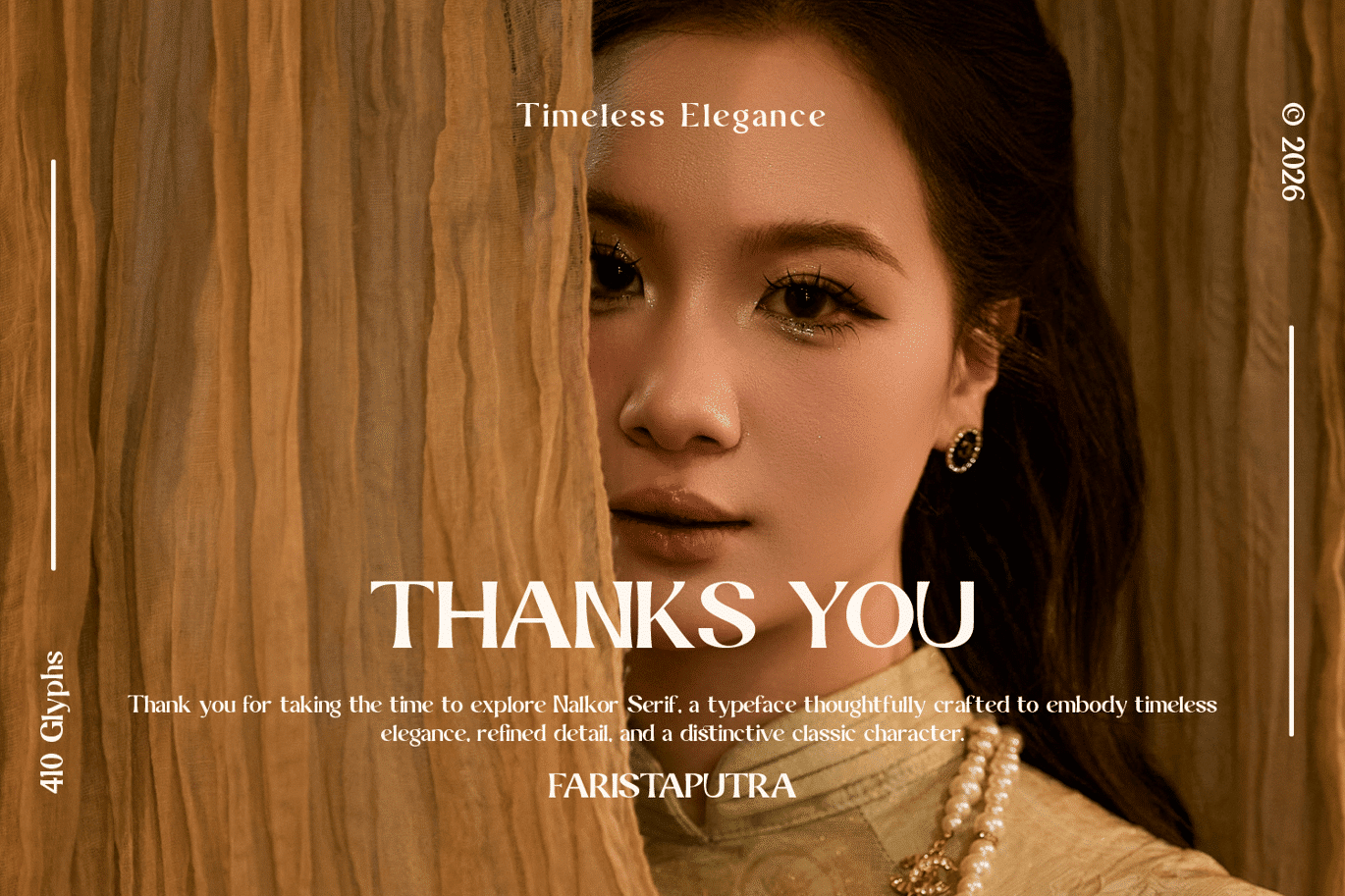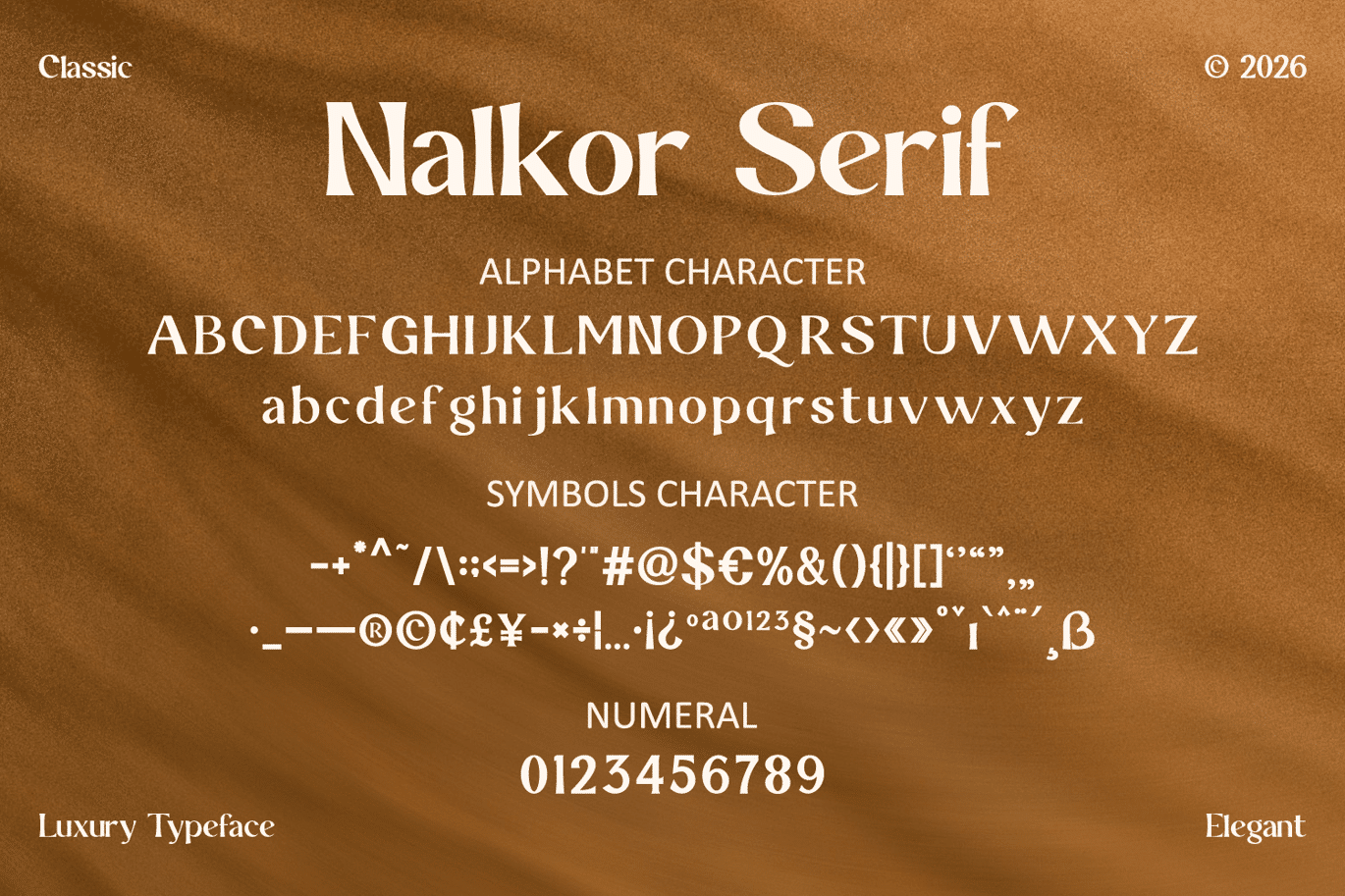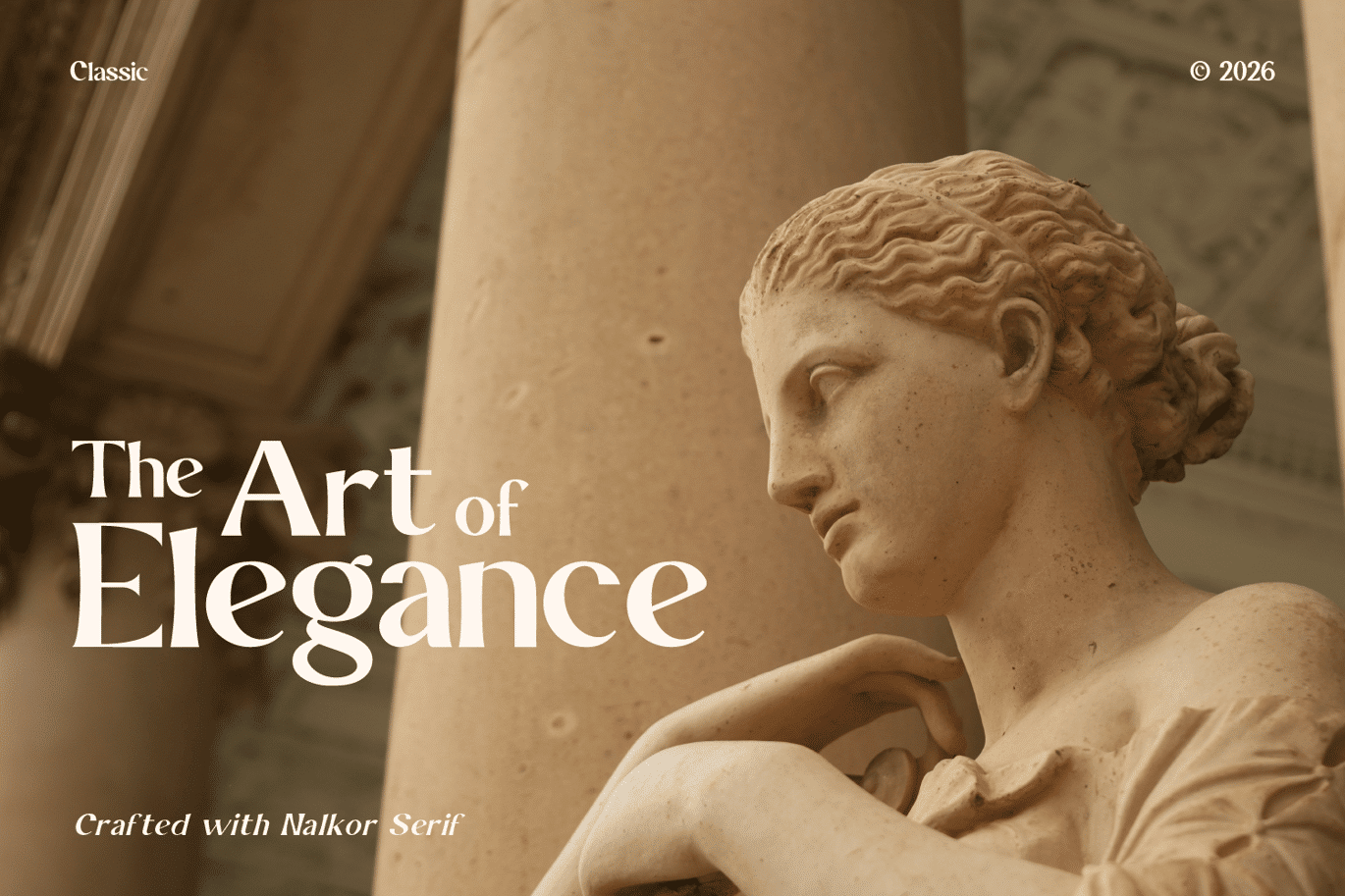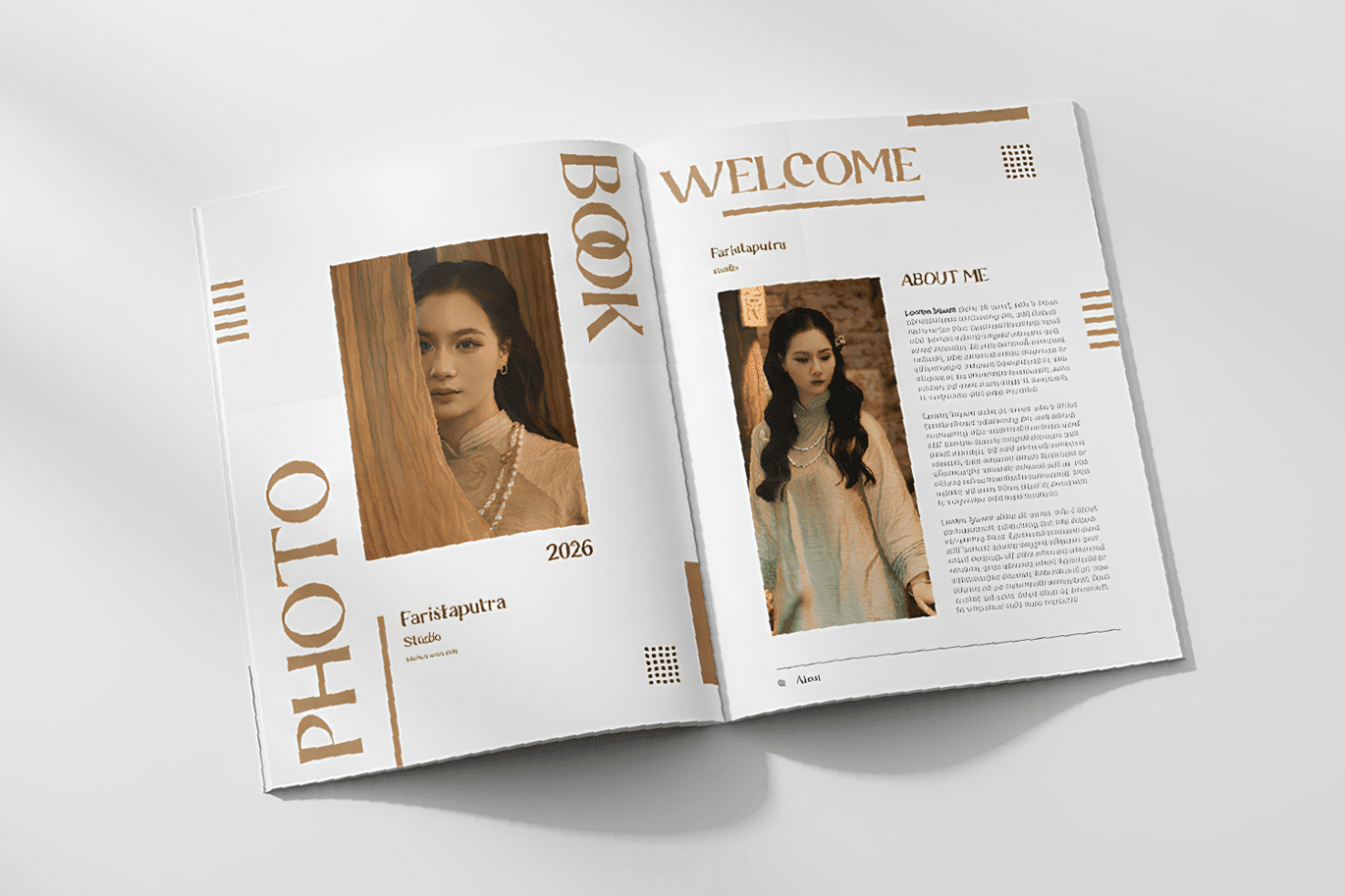
Nalkor Serif Font
Nalkor Serif is a luxury serif typeface designed to deliver a refined, timeless, and sophisticated look. Inspired by classic typography with a modern touch, this font features elegant letterforms, smooth curves, and balanced contrast that create a high-end visual impression.
Perfect for luxury branding, fashion editorials, logos, packaging, invitations, and premium headline designs. Nalkor Serif brings a classy and professional aesthetic to any project, making it ideal for designers who want to create an exclusive and elegant identity.
- Uppercase & Lowercase letters
- Smooth and clean strokes
Nalkor Serif is the perfect choice for creating luxurious, stylish, and timeless designs with a strong premium feel.